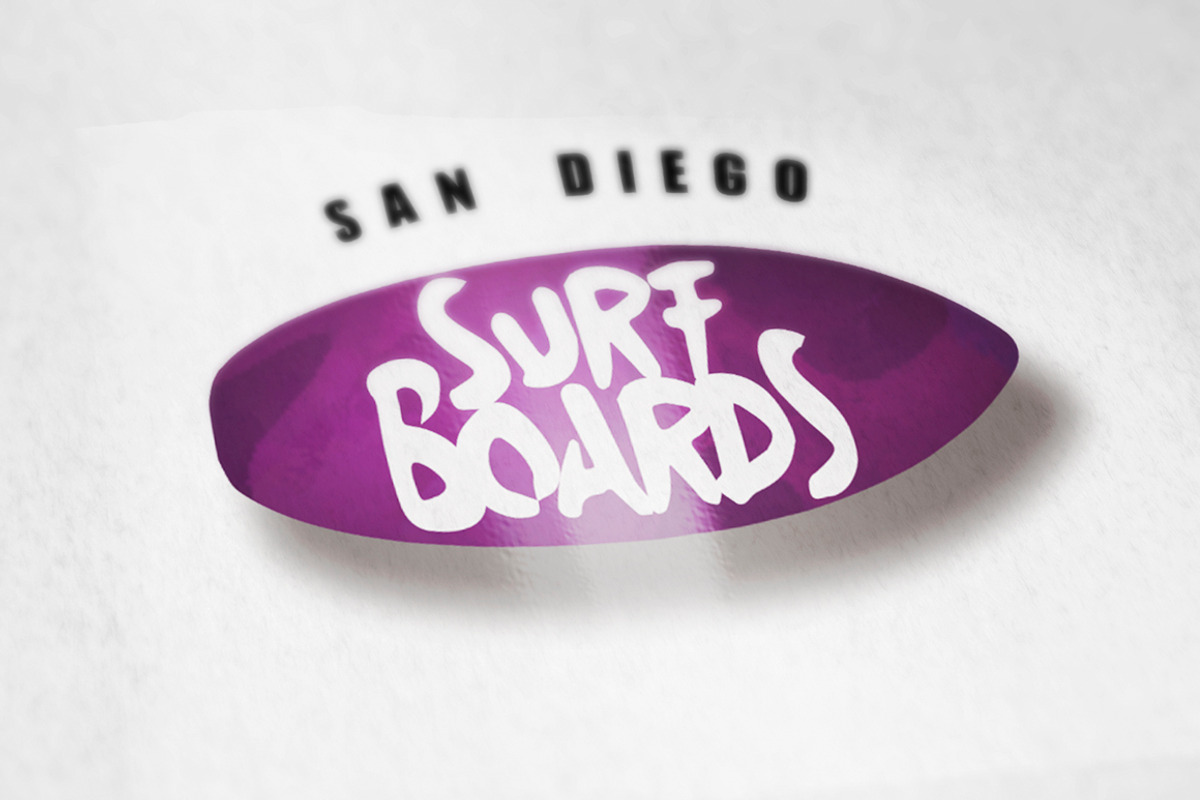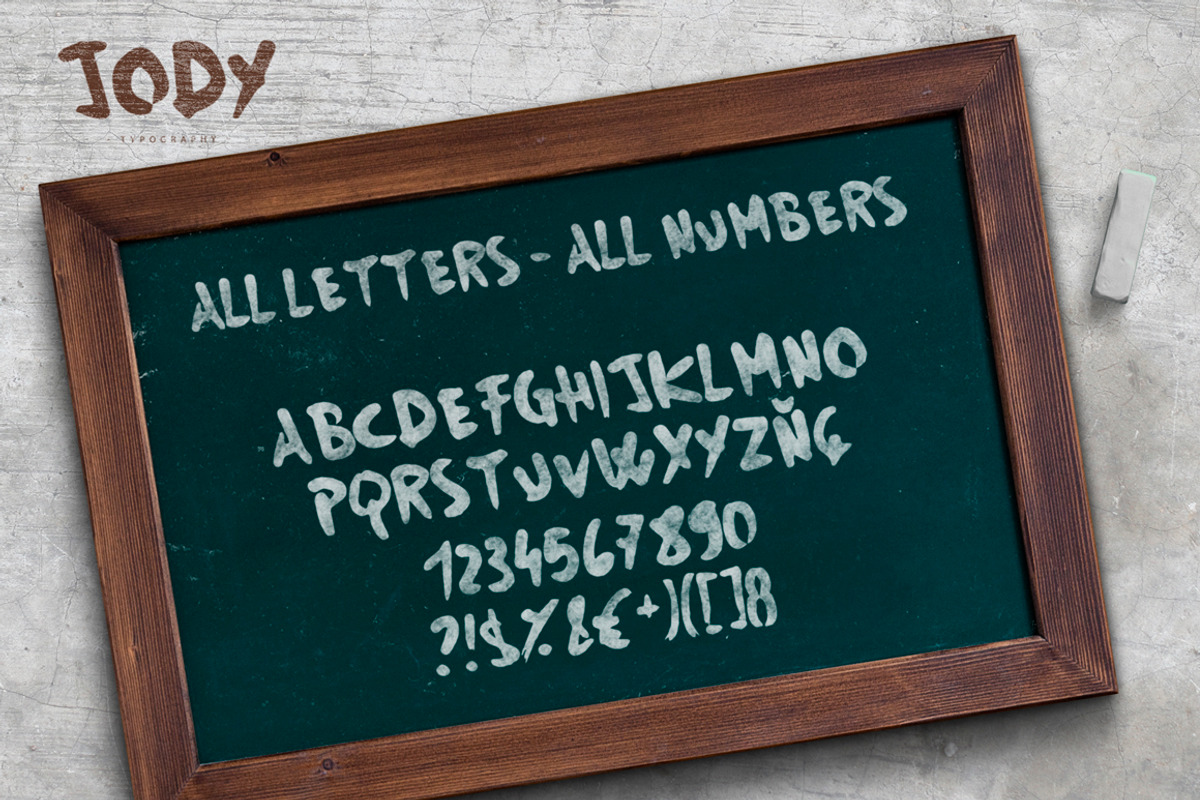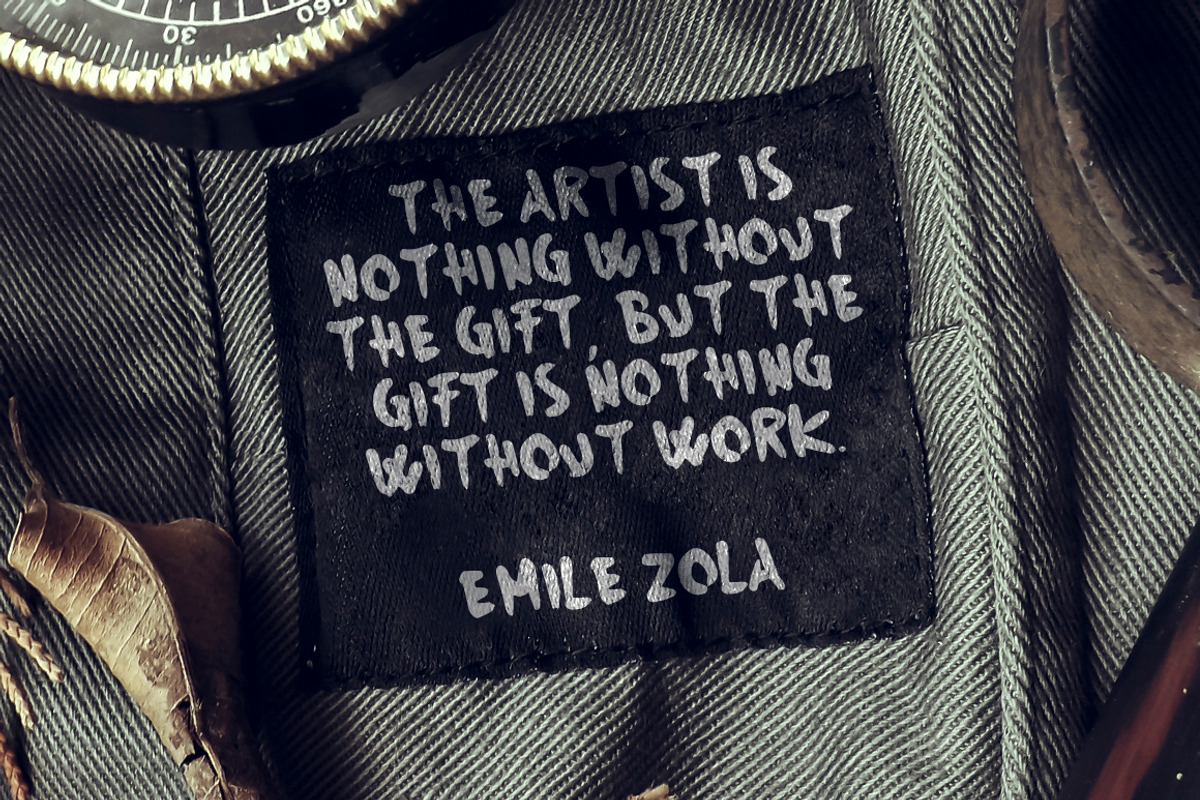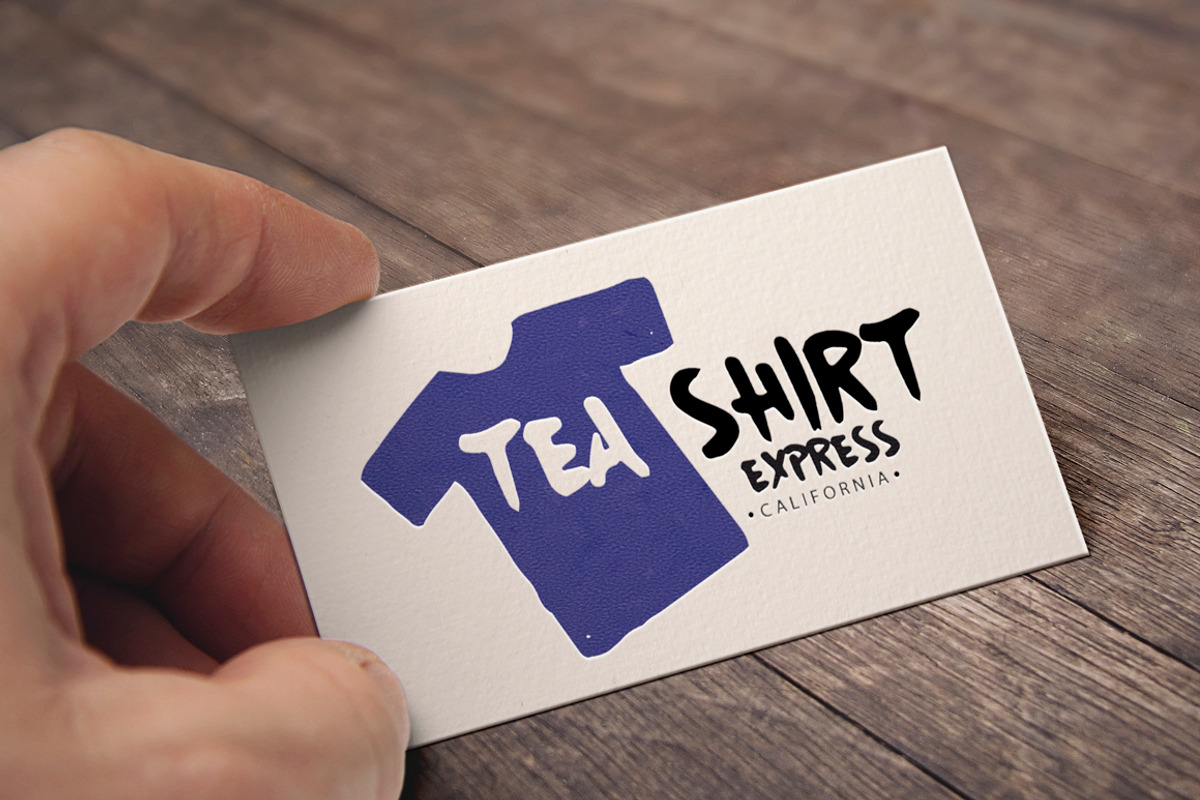
Jody Brush Font | 2$!!
Jody Brush Font | 2$!! by SmartDesigns is a font selected for branding, posters, packaging, typography.
Jody Brush Font | 2$!! by SmartDesigns fits naturally into Branding, posters, packaging, typography.